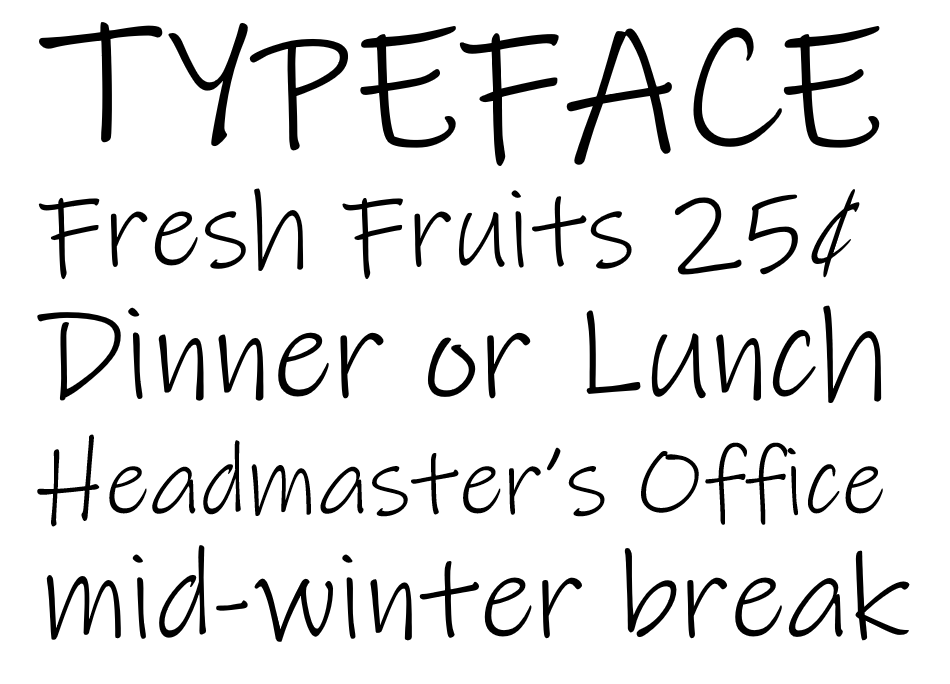
Ink Free is a casual typeface design with irregular alignments and occasional connections. We think it is a great font that can be use in a wide range of experiences including whiteboard and OneNote.
Designers | Steve Matteson |
Font vendor | Monotype Imaging Inc. |
Ink Free was introduced as part of the desktop font collection.